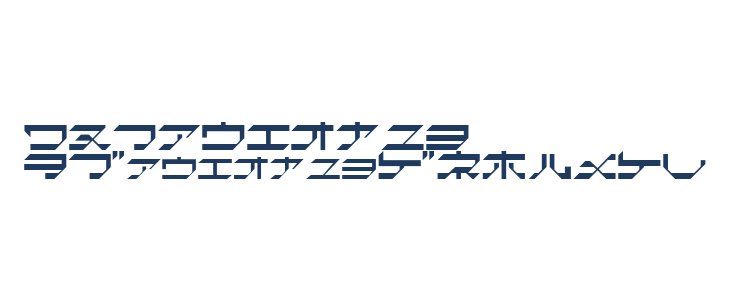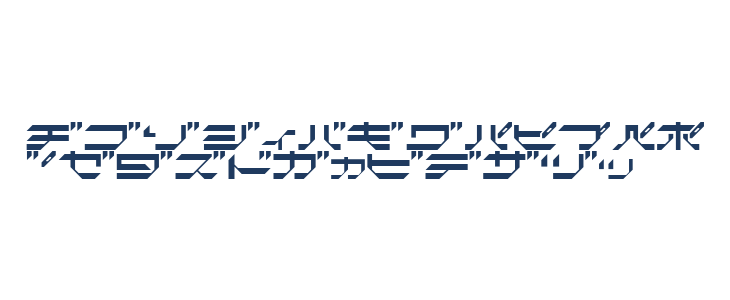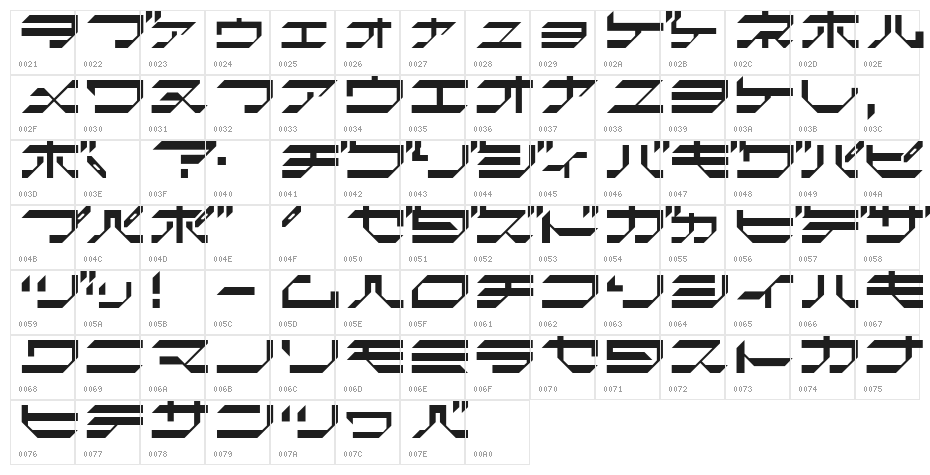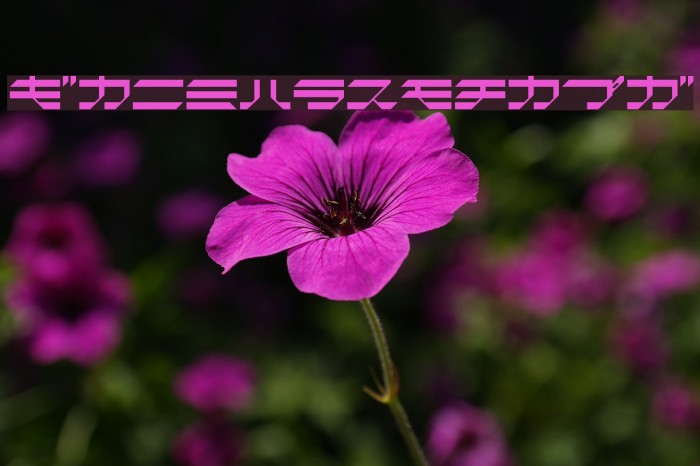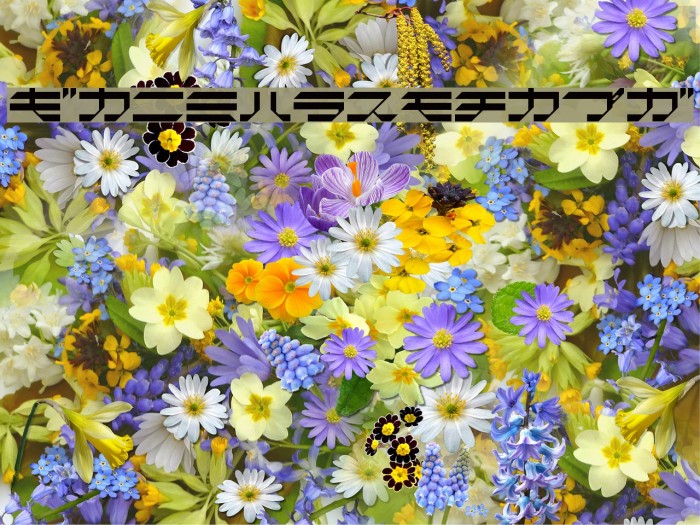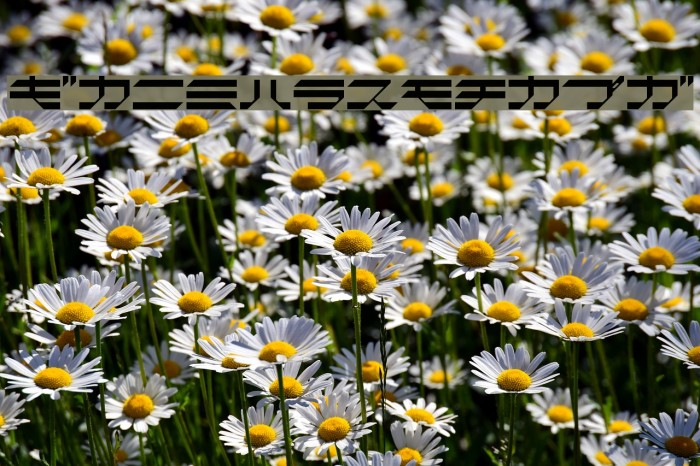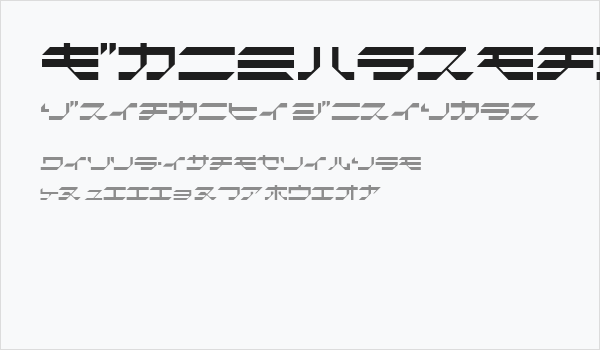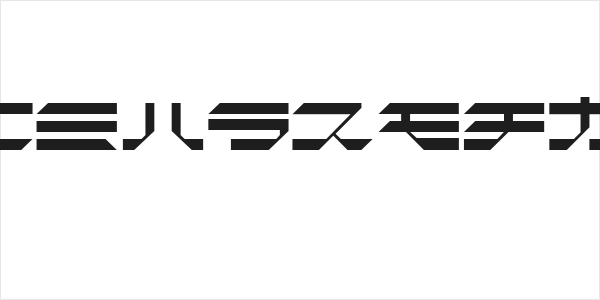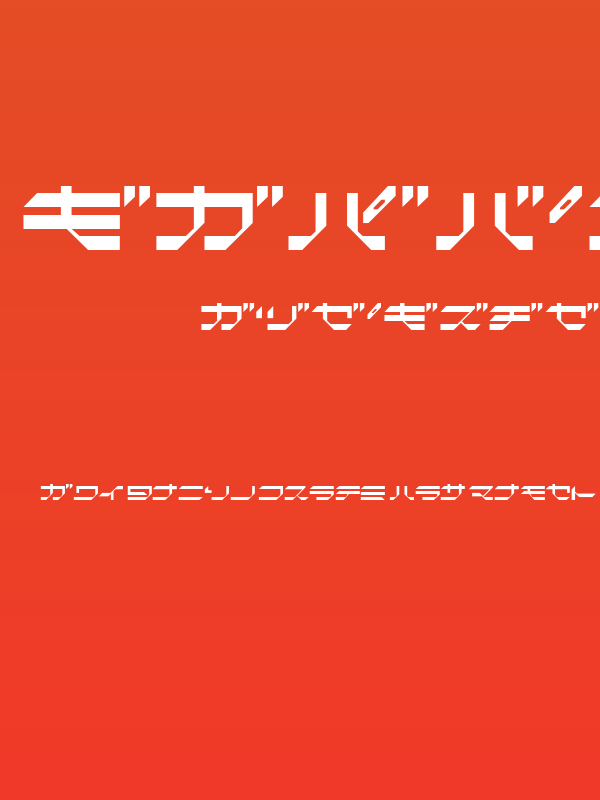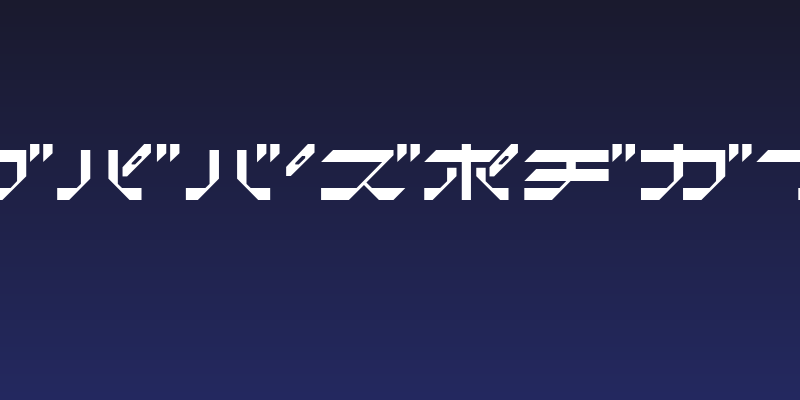
GtinformatKT Font
GtinformatKT Description
This font features a bold, futuristic design with sharp angles and geometric shapes. Each character is constructed with a combination of straight lines and diagonal cuts, giving it a dynamic and edgy appearance. The uppercase letters are particularly striking, with a strong presence that commands attention. The lowercase letters maintain the same angular style, ensuring consistency throughout the typeface. Numbers and special characters are designed to match the overall aesthetic, making this font versatile for various applications. The unique style makes it suitable for projects that require a modern and innovative look.
| Proposed Projects | Ideal for sci-fi themed designs, technology branding, video game titles, and modern advertising campaigns. |